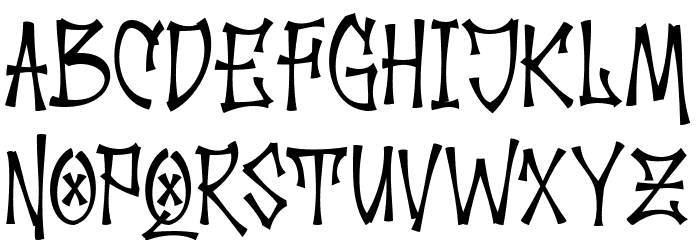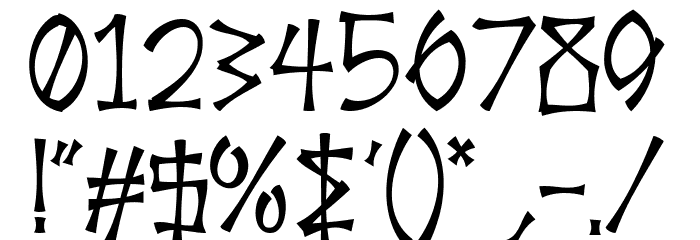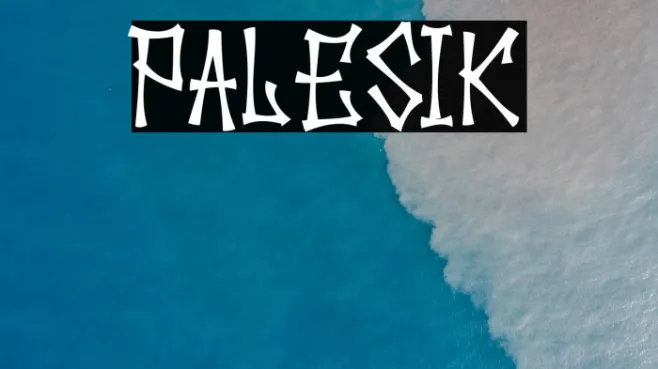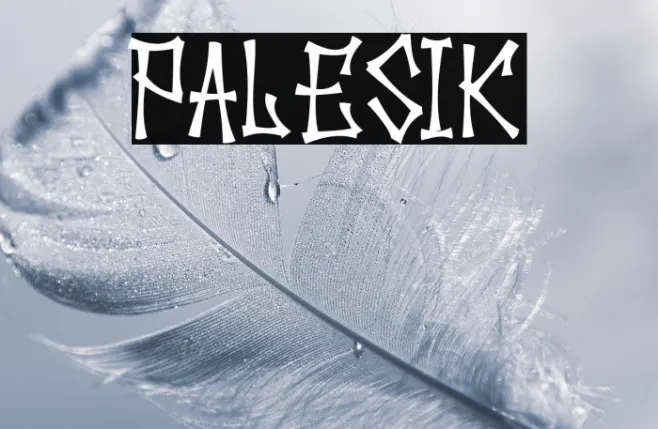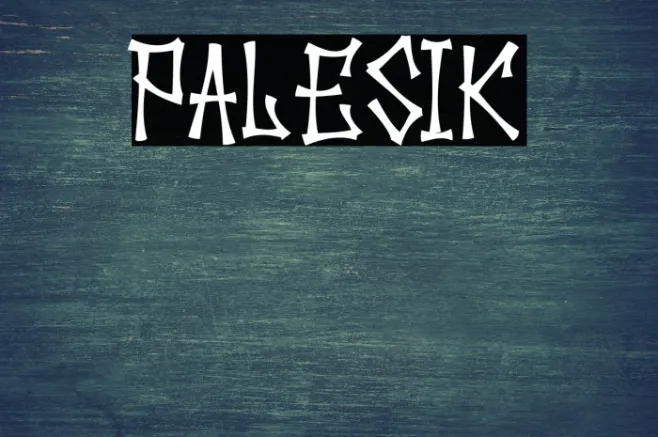
Palesik Font
This font features a bold, graffiti-inspired style with sharp, angular lines and a dynamic, energetic appearance. The uppercase letters are characterized by their exaggerated, jagged edges and unique, artistic flair. The lowercase letters maintain the same edgy aesthetic, providing a cohesive look throughout. Numbers and special characters are designed with the same bold strokes and distinctive style, making them stand out. The font's overall appearance is both modern and rebellious, perfect for projects that require a strong, impactful visual statement.
A bold, graffiti-inspired font with sharp, angular lines and a dynamic style.
- Proposed Projects: Ideal for street art designs, edgy branding, music album covers, and urban-themed posters.
- Overall Style: Modern, Rebellious
- Use Case: Logos, Posters, Headlines